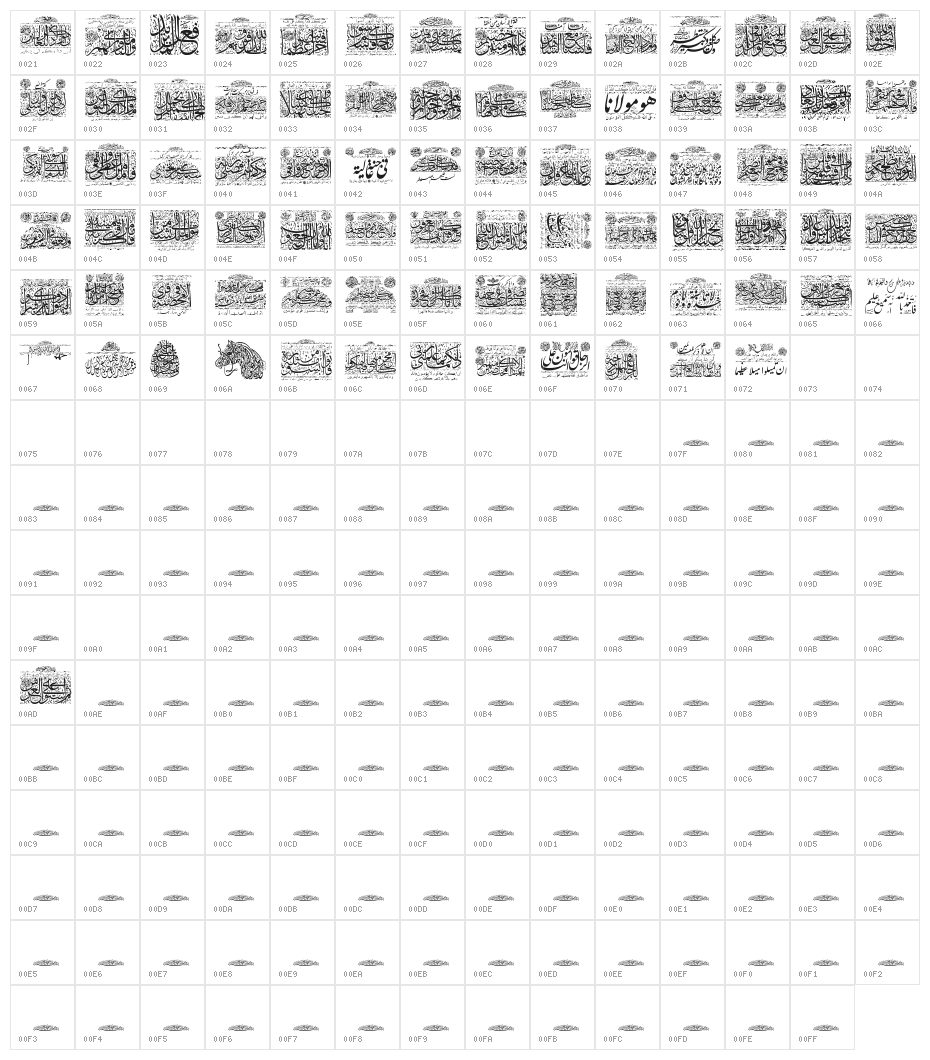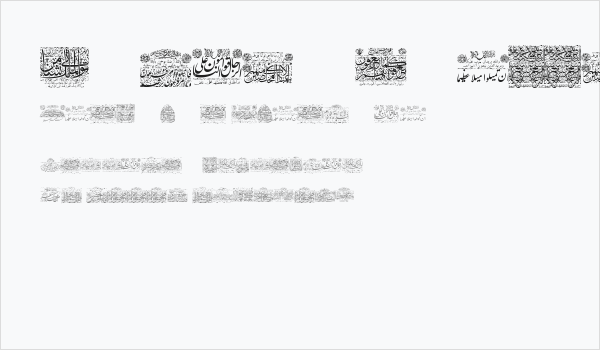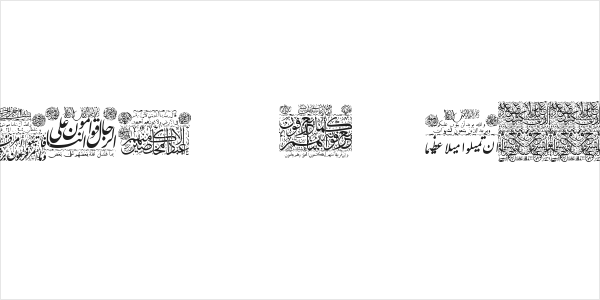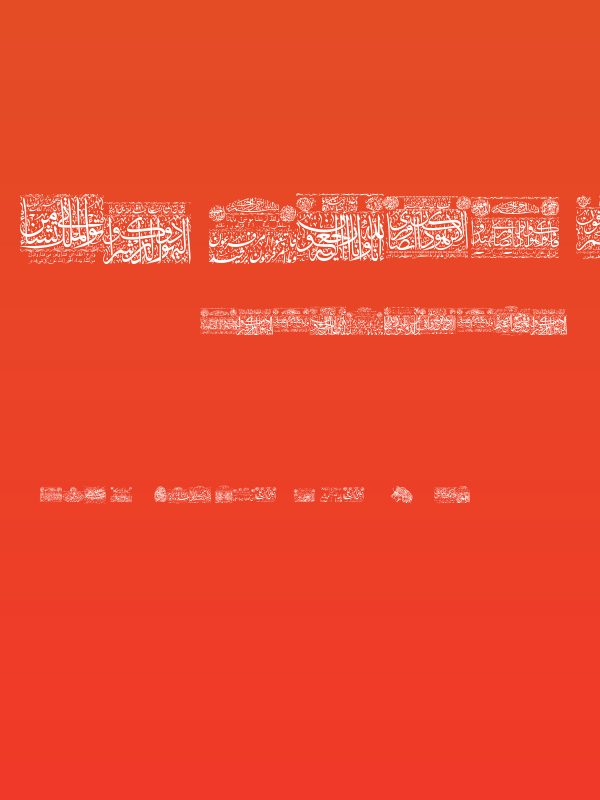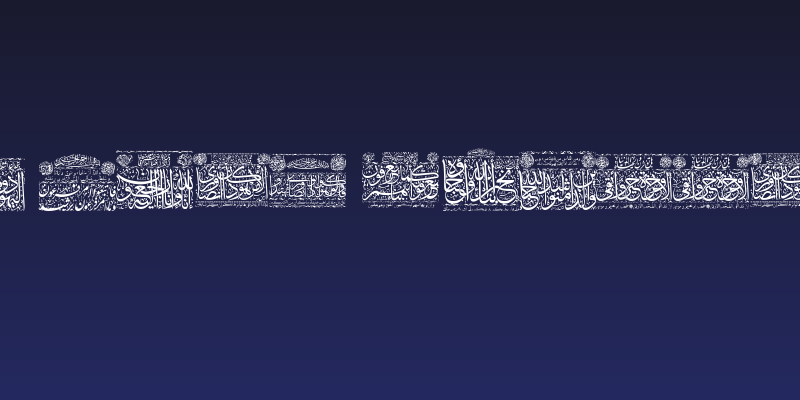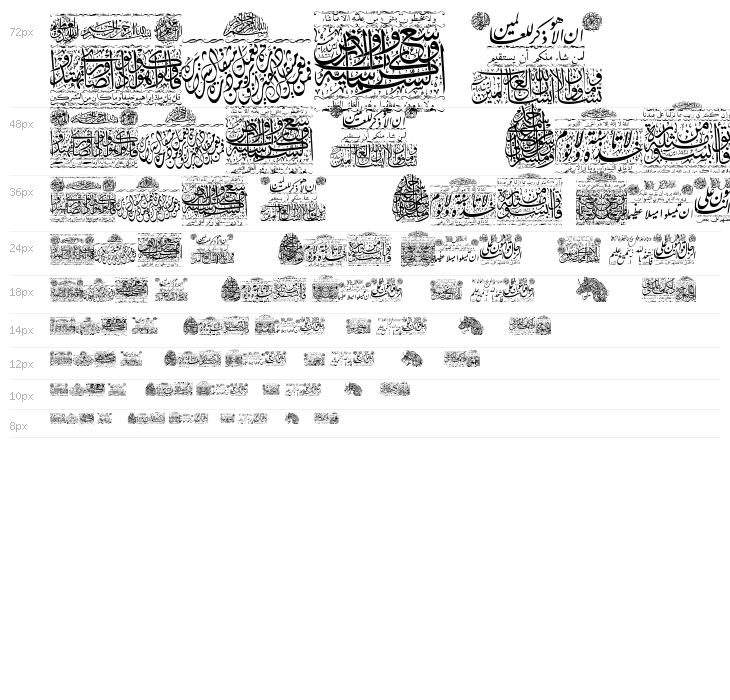
My Font Quraan 1 Font
My Font Quraan 1 Description
This font is a traditional Arabic script characterized by its intricate and ornate design, often used in religious texts. The characters are elegantly connected, with flowing lines and decorative elements that enhance the visual appeal. The script maintains a consistent baseline, with varying heights and widths that add a dynamic rhythm to the text. The strokes are bold and confident, with a high contrast between thick and thin lines, creating a striking visual impact. The font's detailed embellishments and flourishes make it suitable for ceremonial and formal contexts, where a sense of grandeur and reverence is desired.
| Overall Style | Traditional |
| Use Case | Religious texts, Ceremonial documents |
| Proposed Projects | Ideal for religious texts, ceremonial documents, and formal invitations where a traditional and elegant appearance is required. |